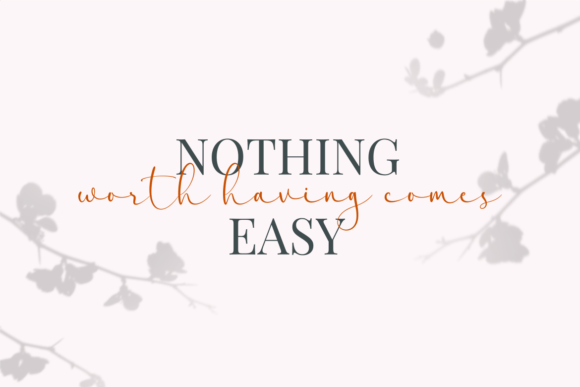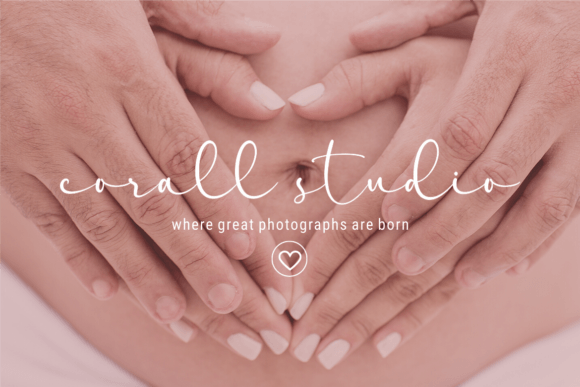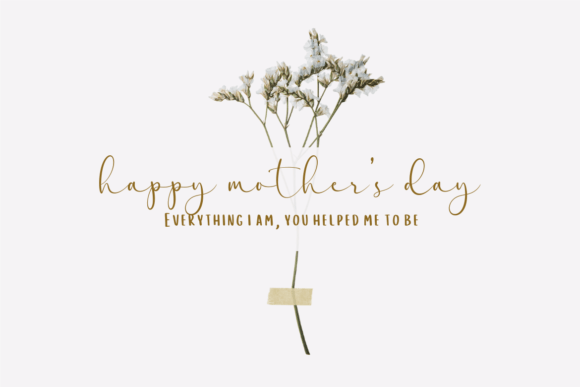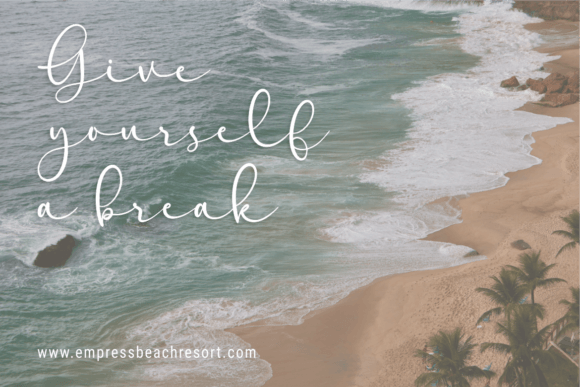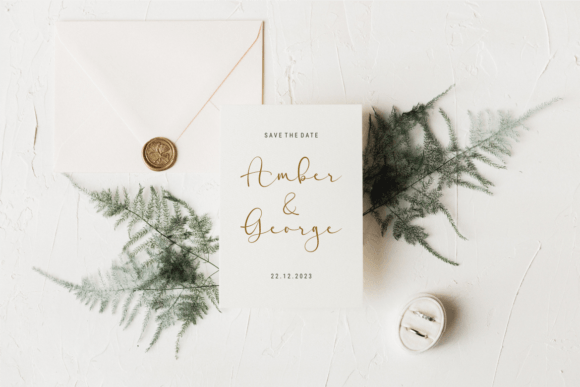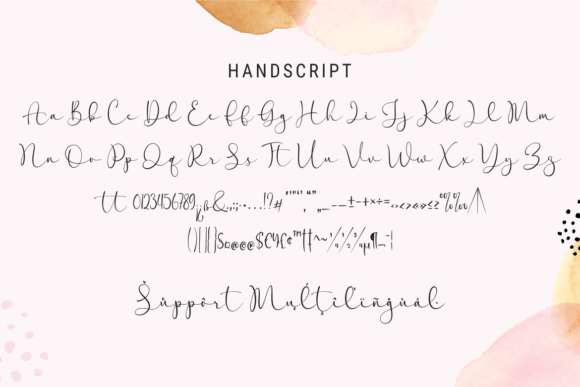
Introduction to Handscript Font
Handscript is a lovely, stylish, and greatly detailed handwritten font.
Very suitable for your Valentineโs theme design, wedding invitations, photography, and logos This font will guarantee a romantic touch to each of your creations.